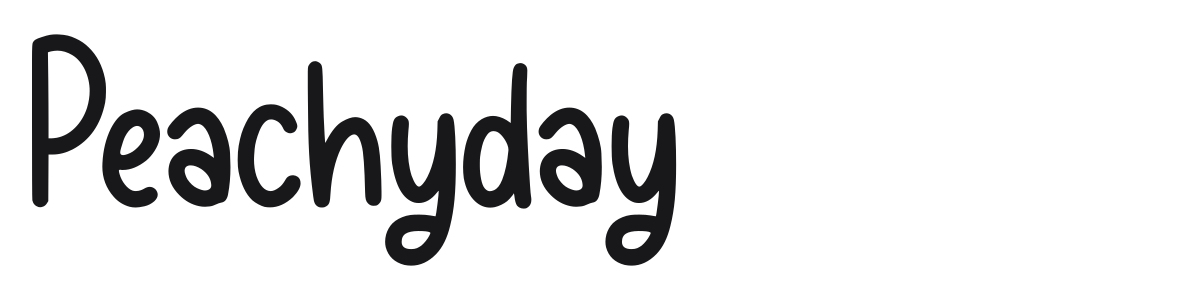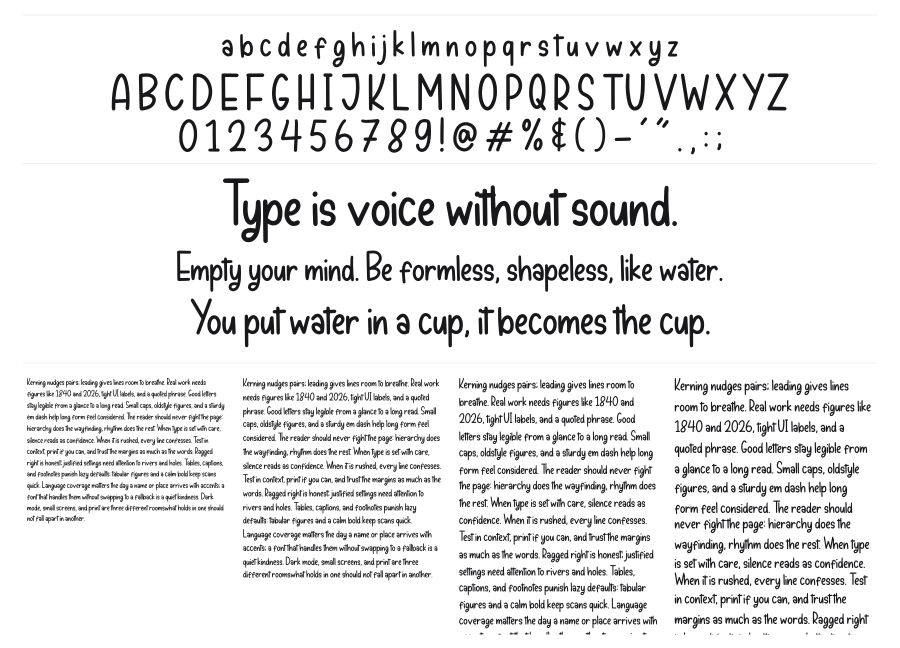
Peachyday
Peachyday is a bold upright handwritten font with chunky rounded strokes and an easygoing, casual rhythm. The slightly irregular construction keeps it feeling genuinely hand-lettered rather than mechanical. It brings warmth and personality to packaging, branding, and any project that needs a human touch.